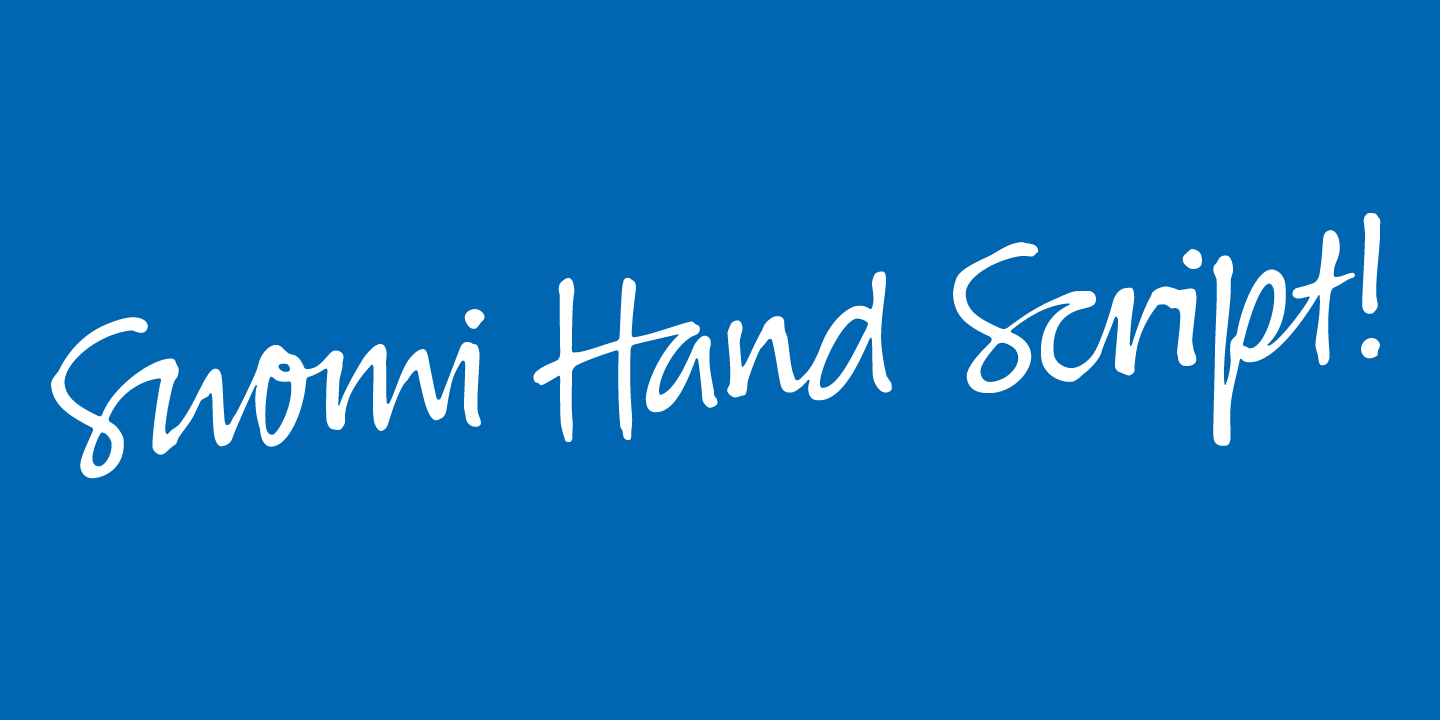
Suomi Hand Script Font is perfect for Nordic cultural events, Scandinavian design projects, Finnish heritage materials, cozy cabin branding, handcrafted product labels, natural lifestyle publications, artisanal food packaging, and authentic design projects that require personal handwritten typography with Nordic warmth and genuine craftsmanship character.
This Suomi Hand Script Font is exciting because it captures the intimate charm of Finnish handwriting traditions with naturally flowing letterforms that convey personal touch and Nordic authenticity, featuring organic stroke variations and handcrafted imperfections that create genuine warmth while maintaining excellent readability for personal communications.
The Suomi Hand Script Font family includes handwritten weights with Nordic styling, complete character sets with personal uppercase and lowercase letters, crafted numerals, intimate punctuation, and cultural symbols that provide comprehensive typography solutions for Scandinavian and handcrafted design projects requiring authentic personal aesthetics and Nordic appeal.
Perfect for creating intimate personal communications and authentic Nordic brand identities, Suomi Hand Script Font Free Download delivers the handcrafted typography that transforms text into warm expressions of Finnish heritage and personal connection. This distinctive typeface embodies the essence of Nordic craftsmanship and personal touch, making it essential for projects celebrating Scandinavian culture, handmade authenticity, personal branding, and any design requiring genuine character with authentic Finnish sophistication and timeless Nordic charm.